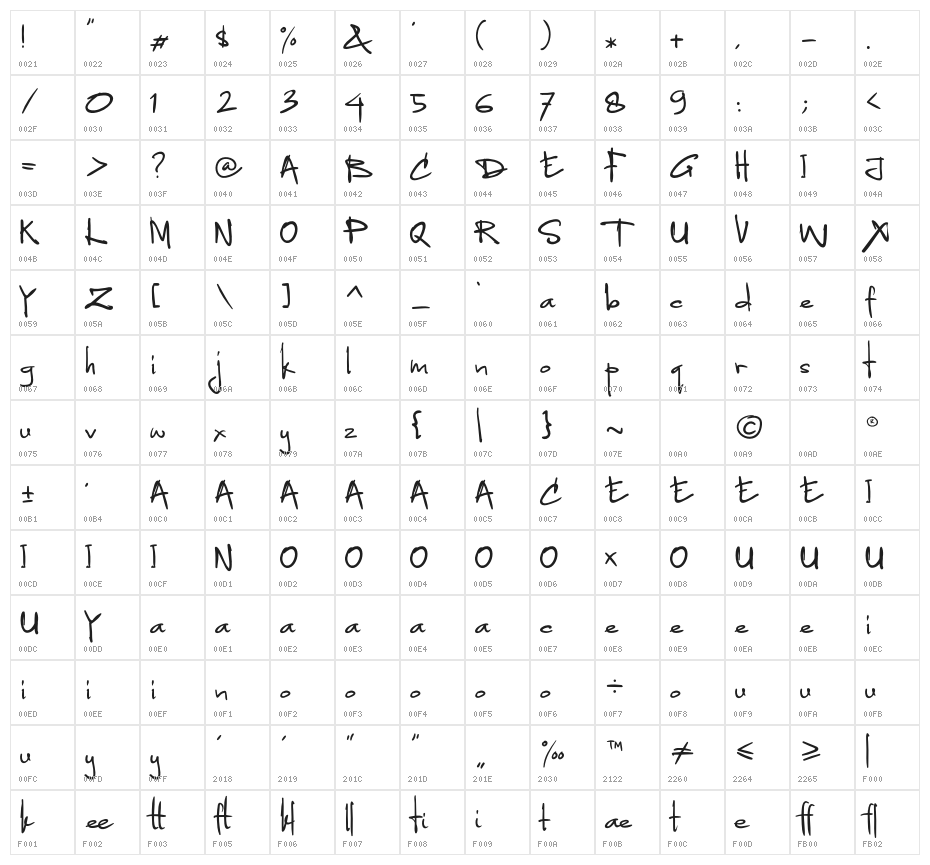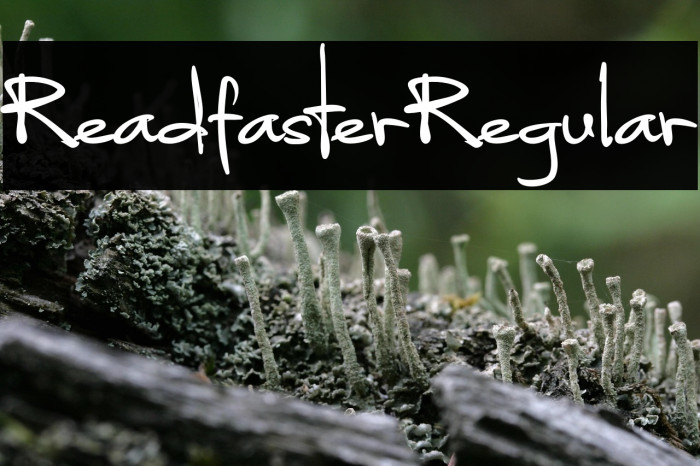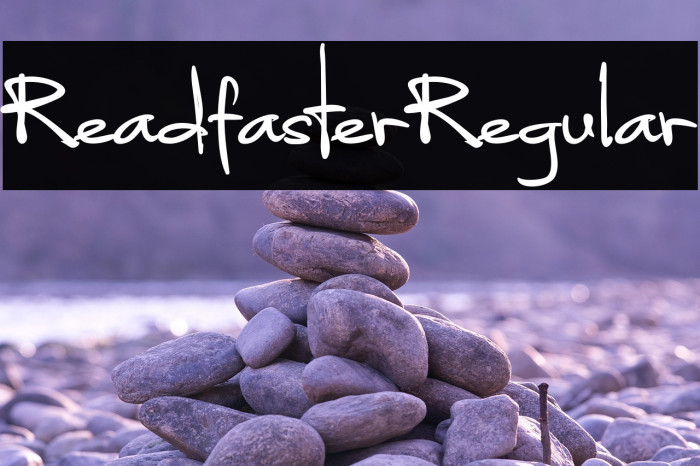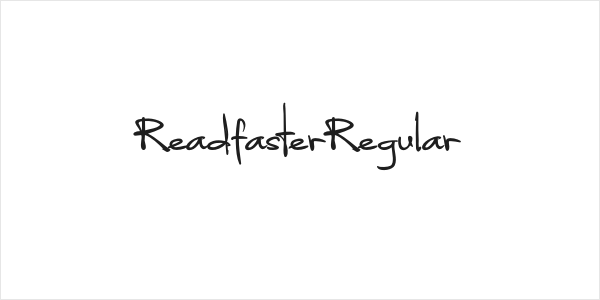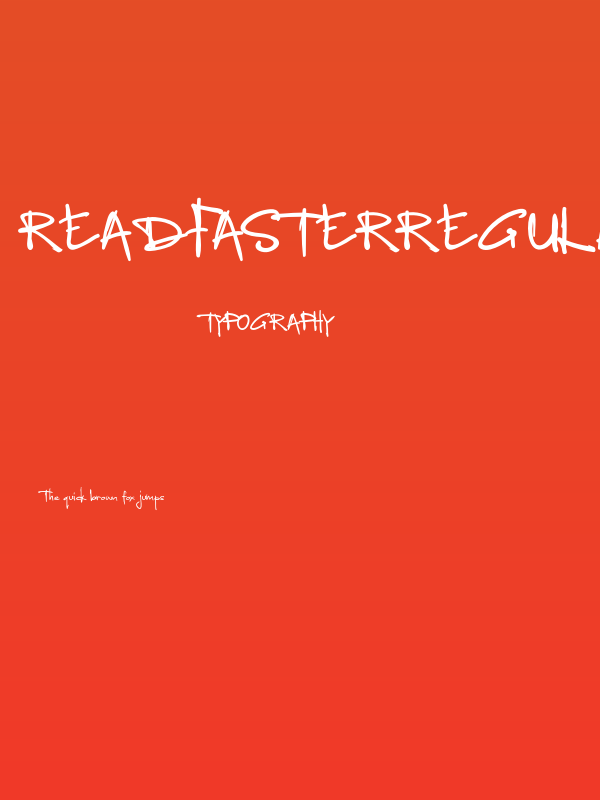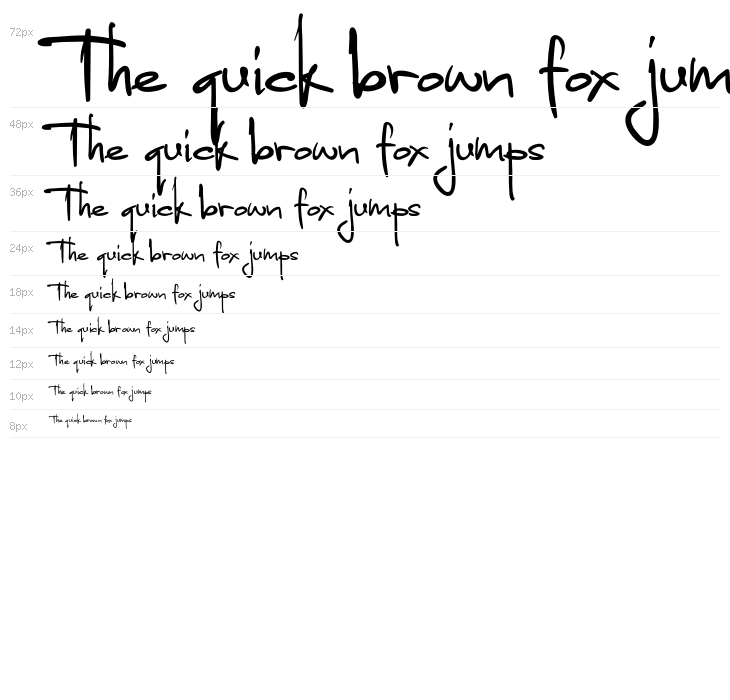
ReadfasterRegular Font
ReadfasterRegular Description
This font features a dynamic and energetic handwritten style, characterized by its irregular strokes and playful appearance. The letters exhibit a casual, freeform structure with varying heights and angles, creating a lively and informal aesthetic. The uppercase and lowercase letters maintain a consistent flow, while the numerals and special characters complement the overall design with their quirky and spontaneous forms. This font's unique personality makes it stand out, offering a sense of creativity and individuality.
| Overall Style | Casual, Creative |
| Use Case | Headlines, Logos, Creative projects |
| Proposed Projects | Ideal for creative projects such as greeting cards, invitations, posters, and branding materials that seek a personal and informal touch. |